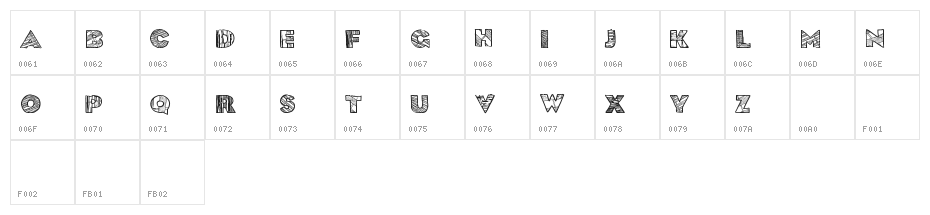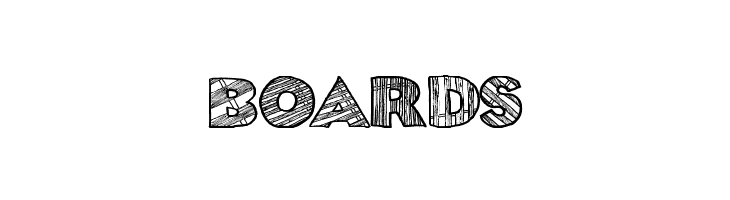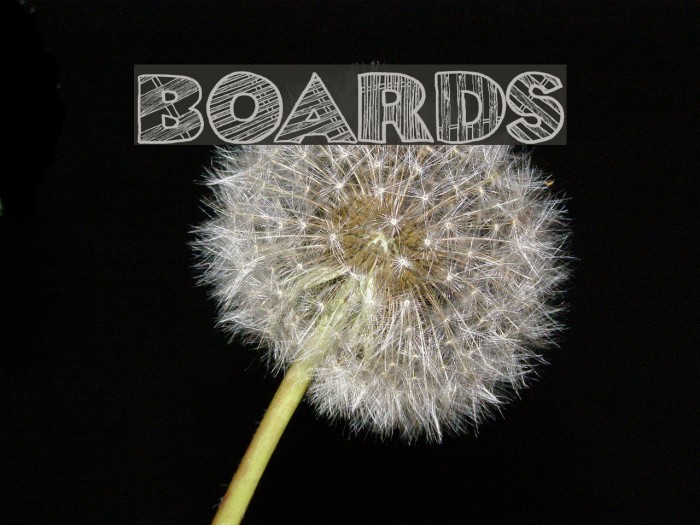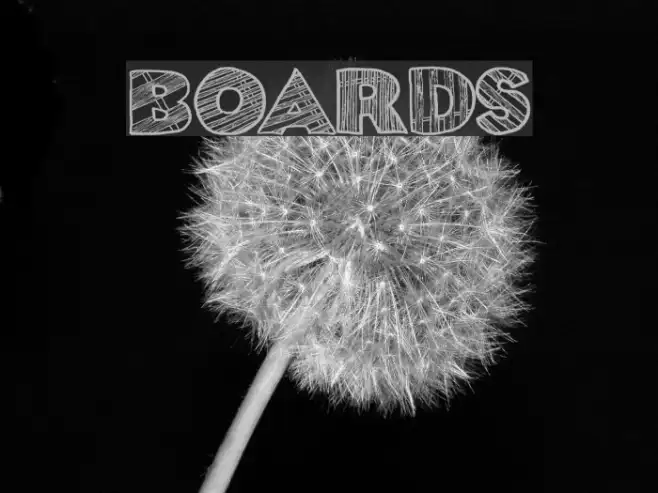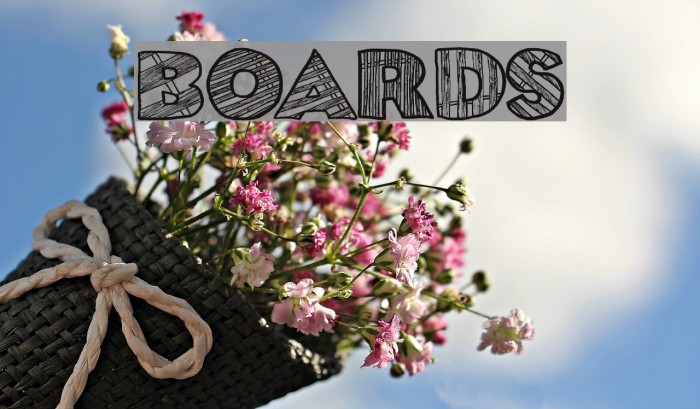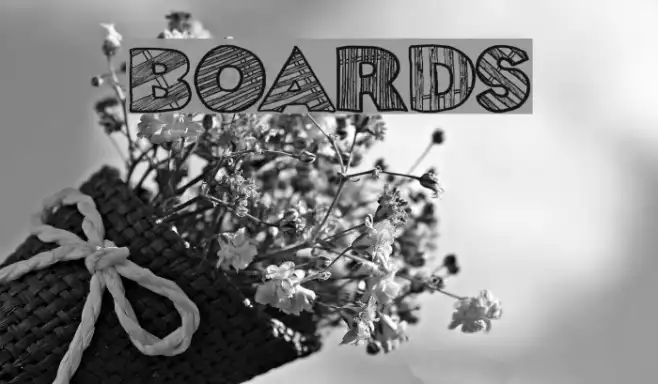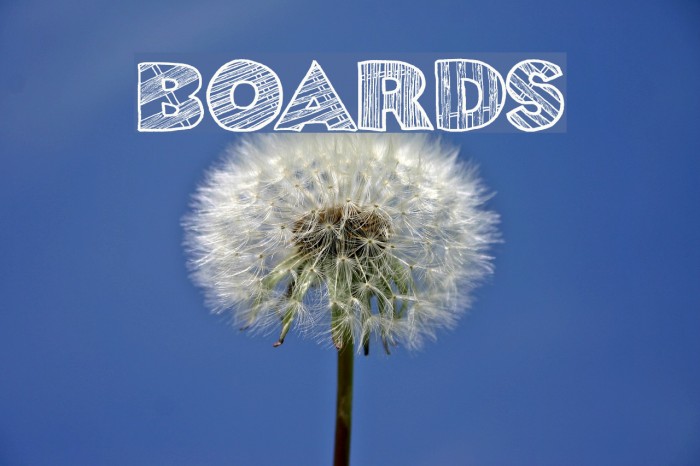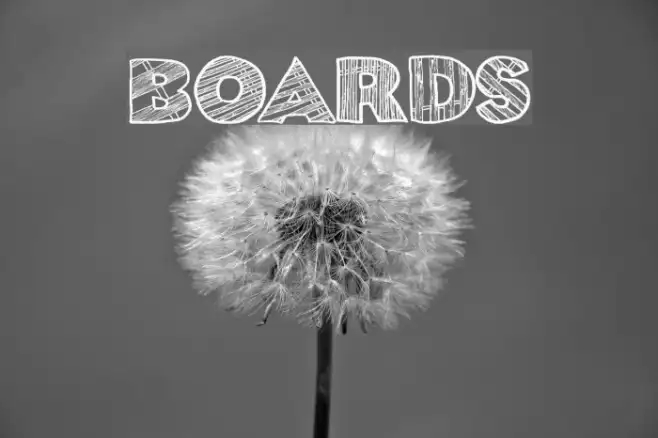
boards Font
boards Description
This font features a bold, decorative style with a hand-drawn appearance. Each character is filled with intricate line patterns, giving it a textured and artistic look. The uppercase letters are prominent and eye-catching, making them suitable for creative projects. The font's unique design is reminiscent of doodles or sketches, adding a playful and informal touch to any text. Its distinct style makes it ideal for use in projects that require a fun and engaging visual element, such as posters, invitations, or children's book covers.
| Proposed Projects | Ideal for posters, invitations, children's book covers, and creative designs. |